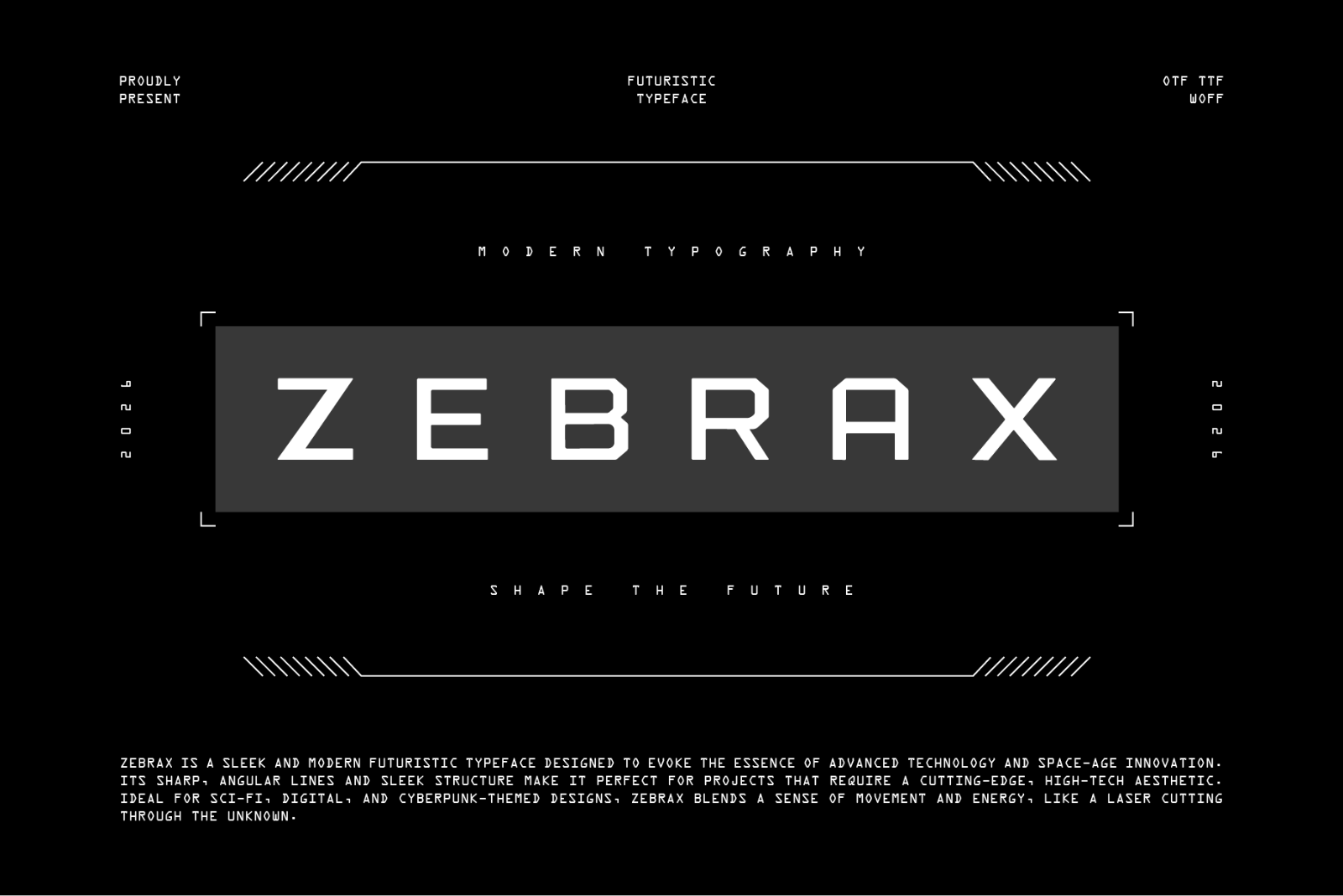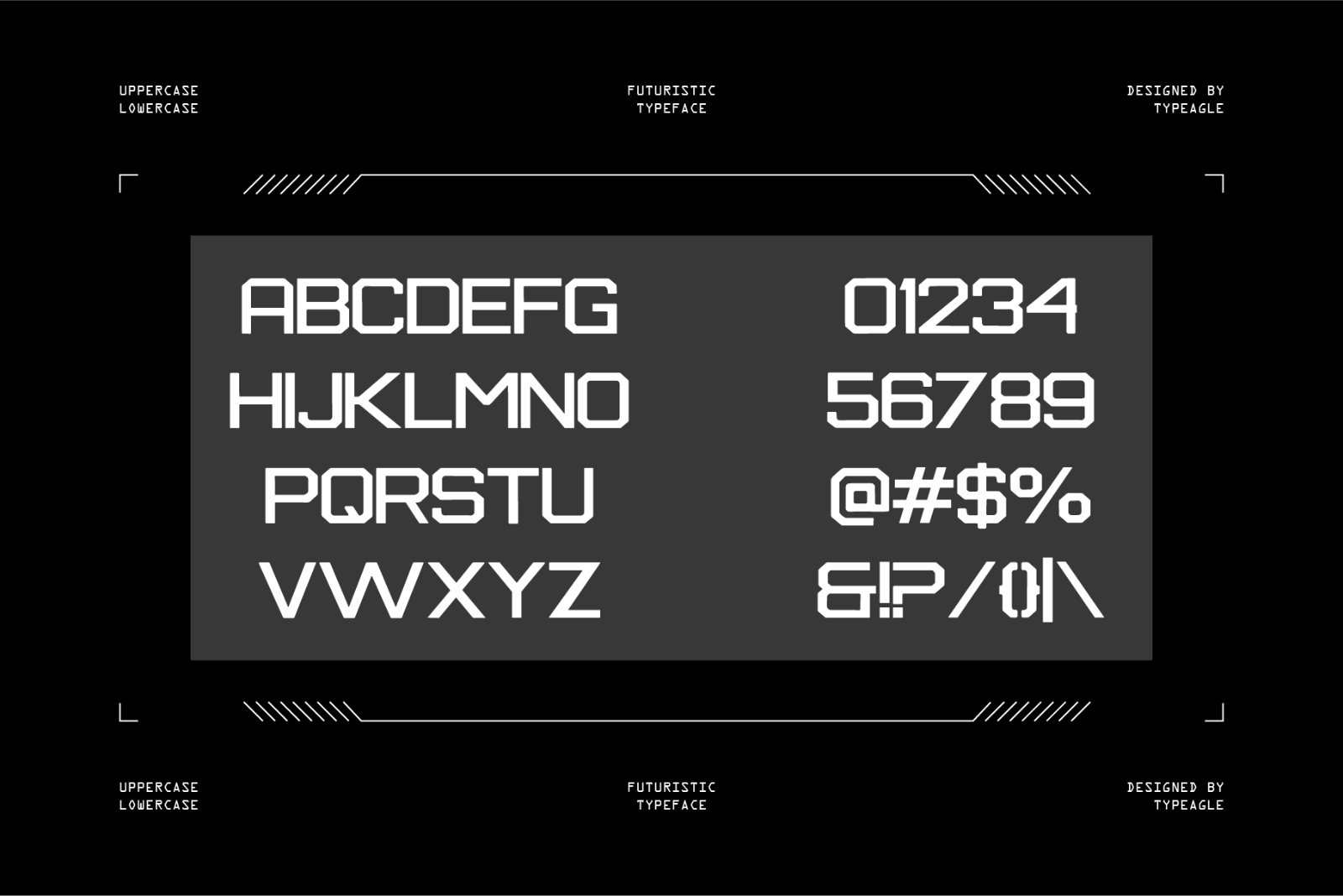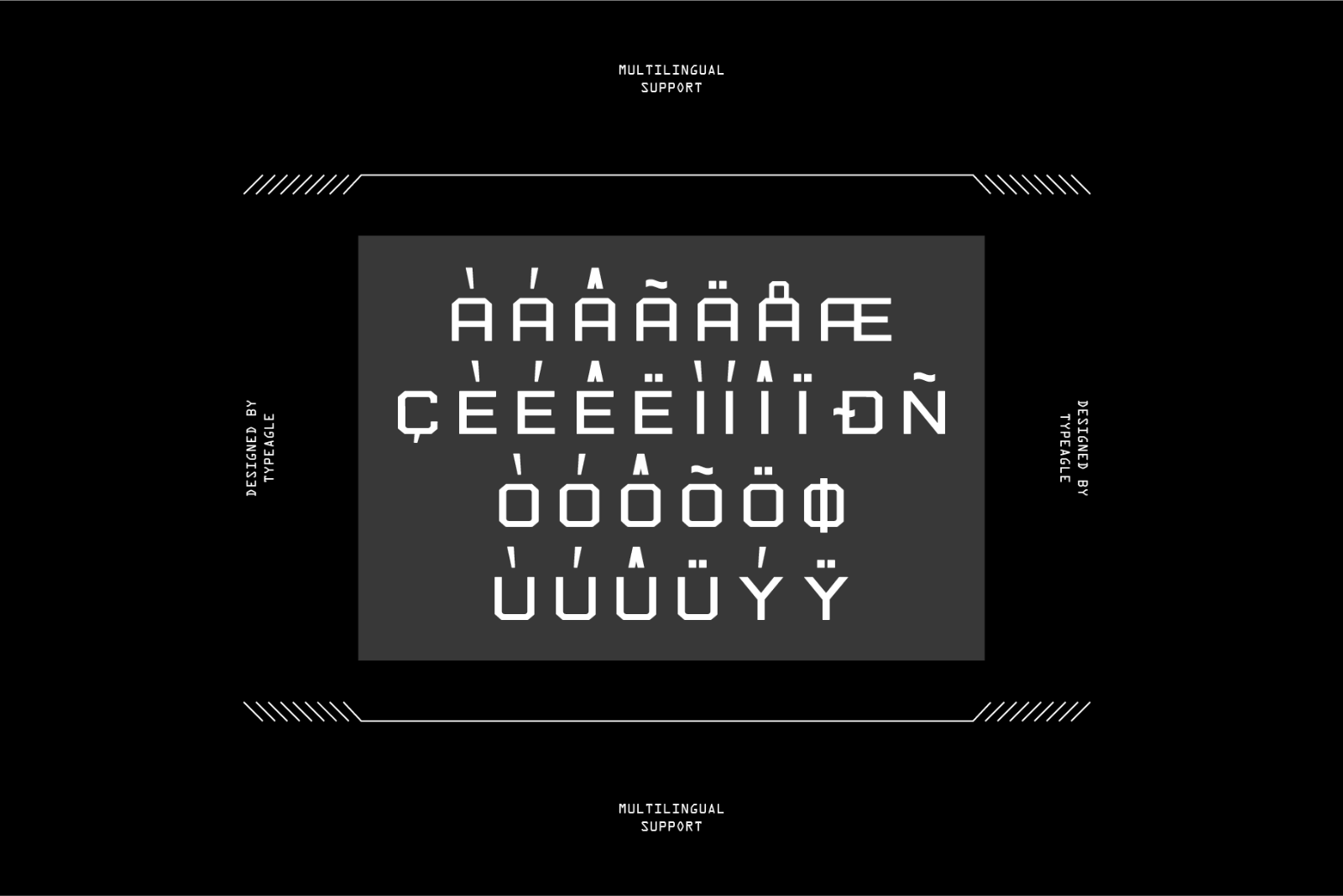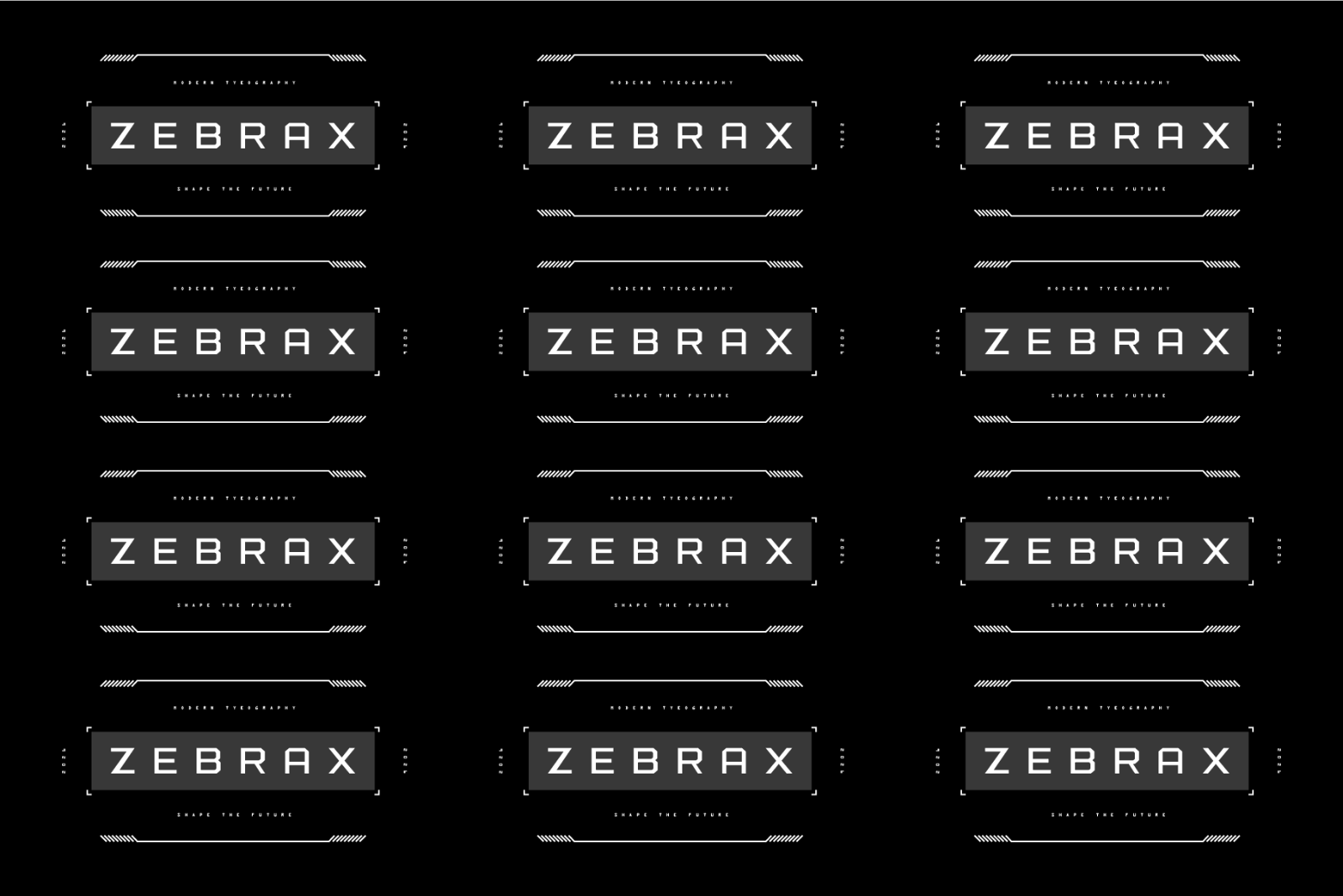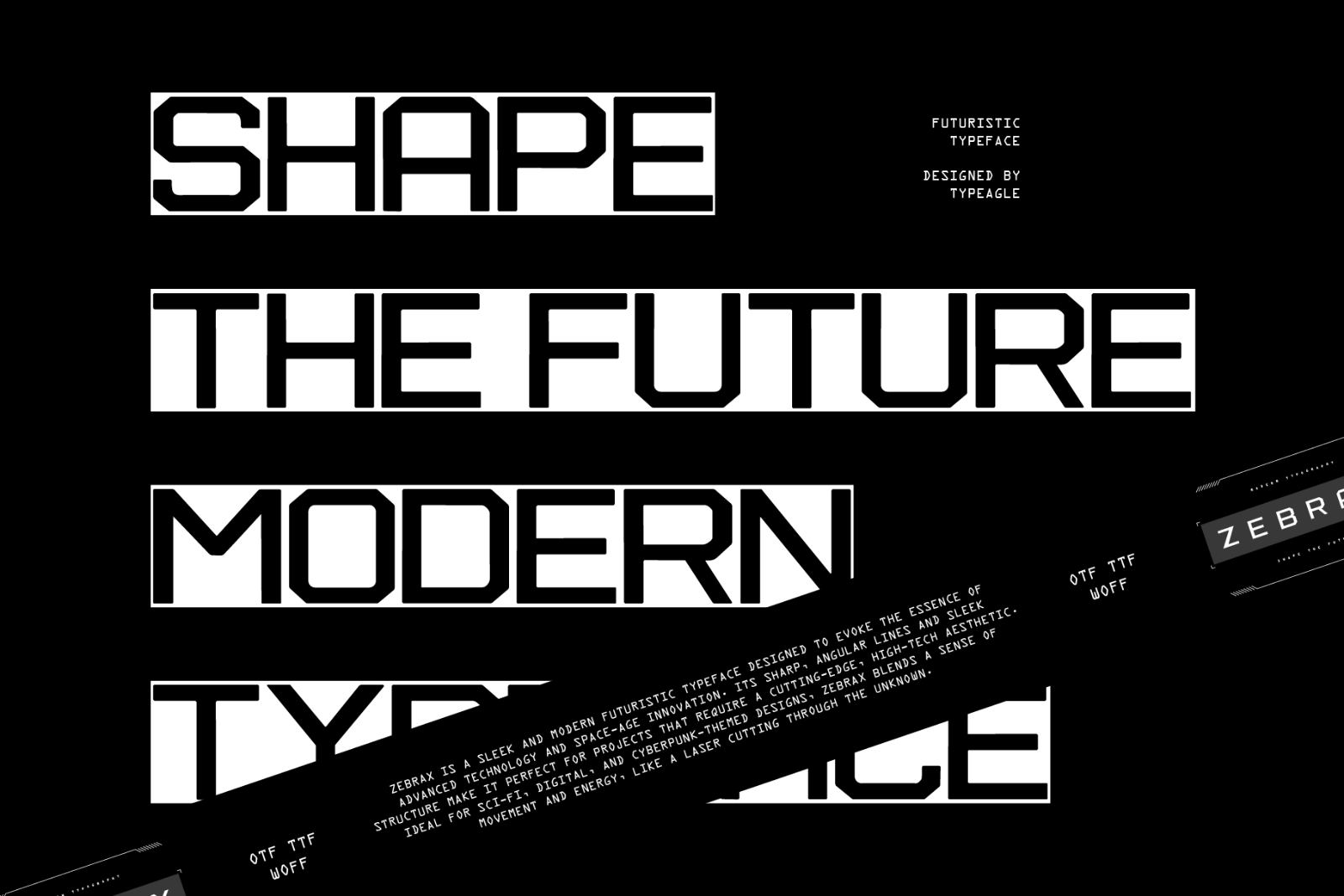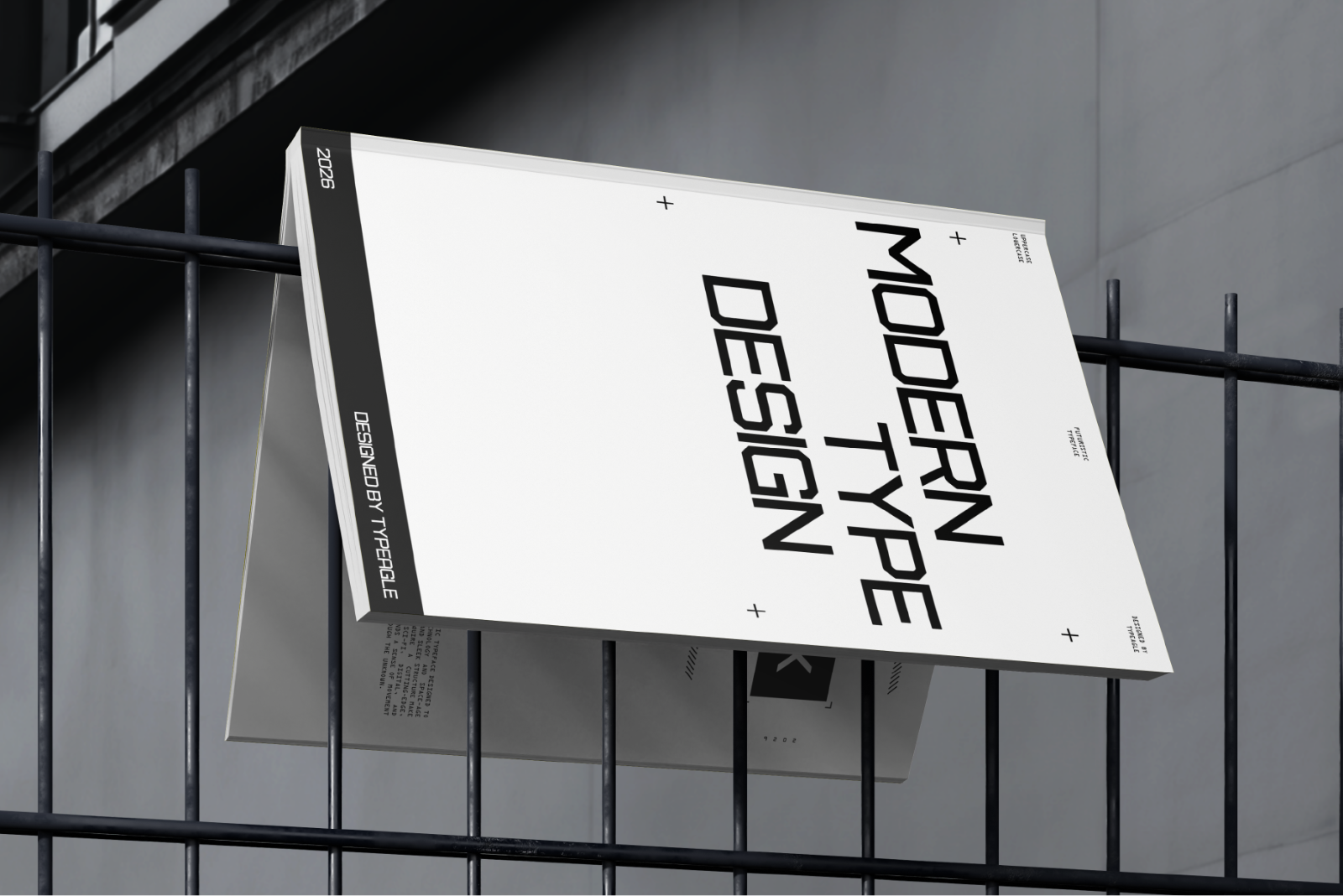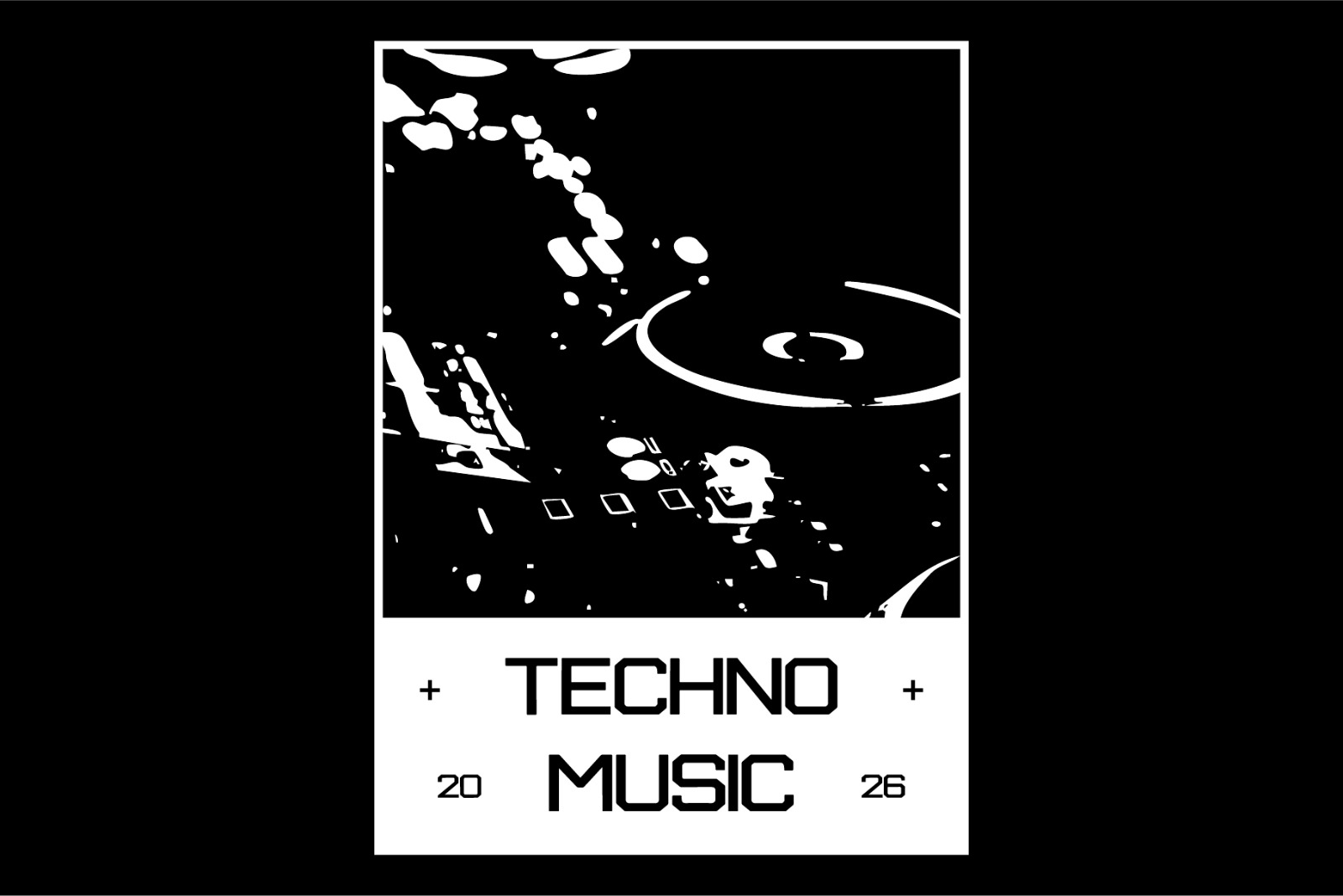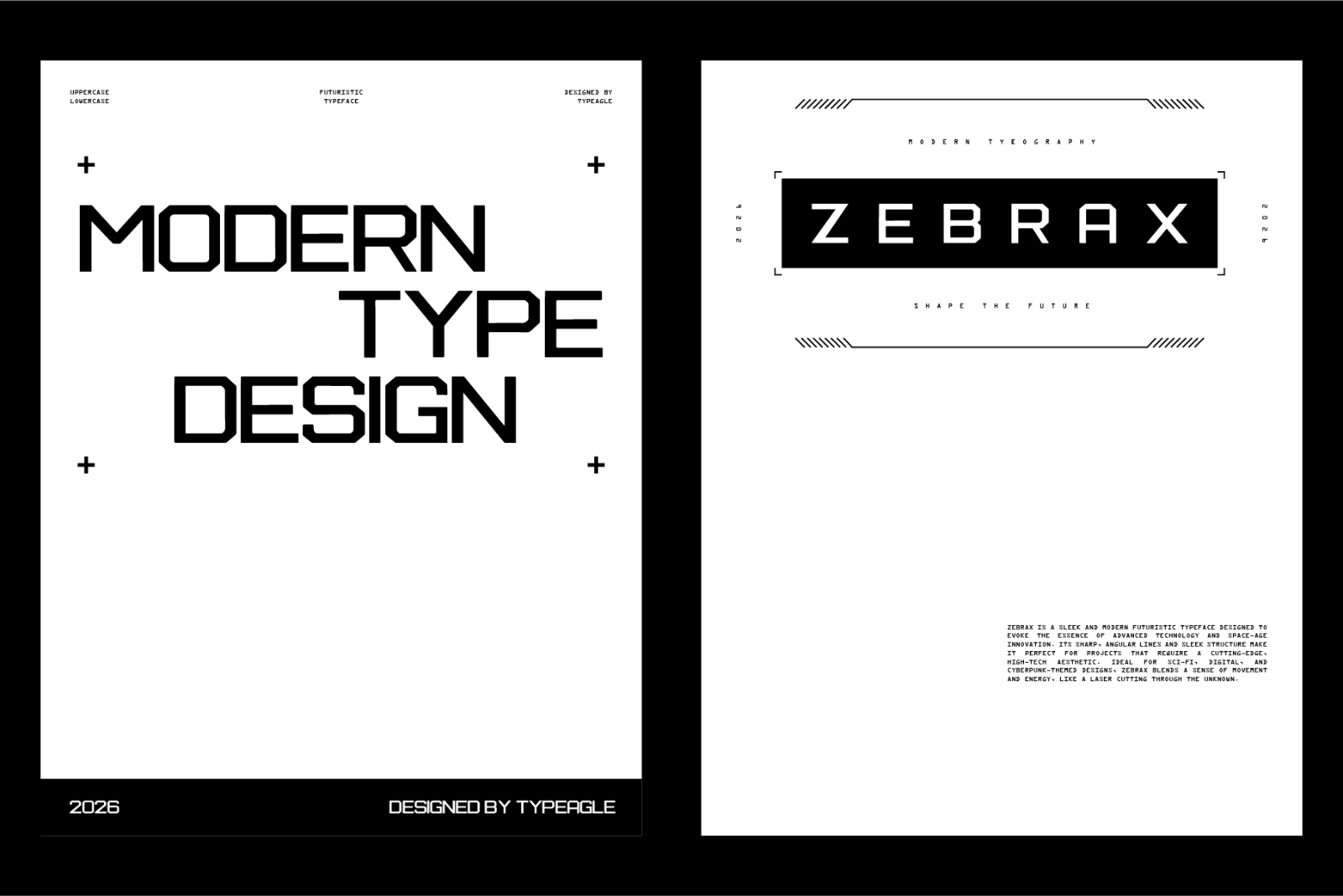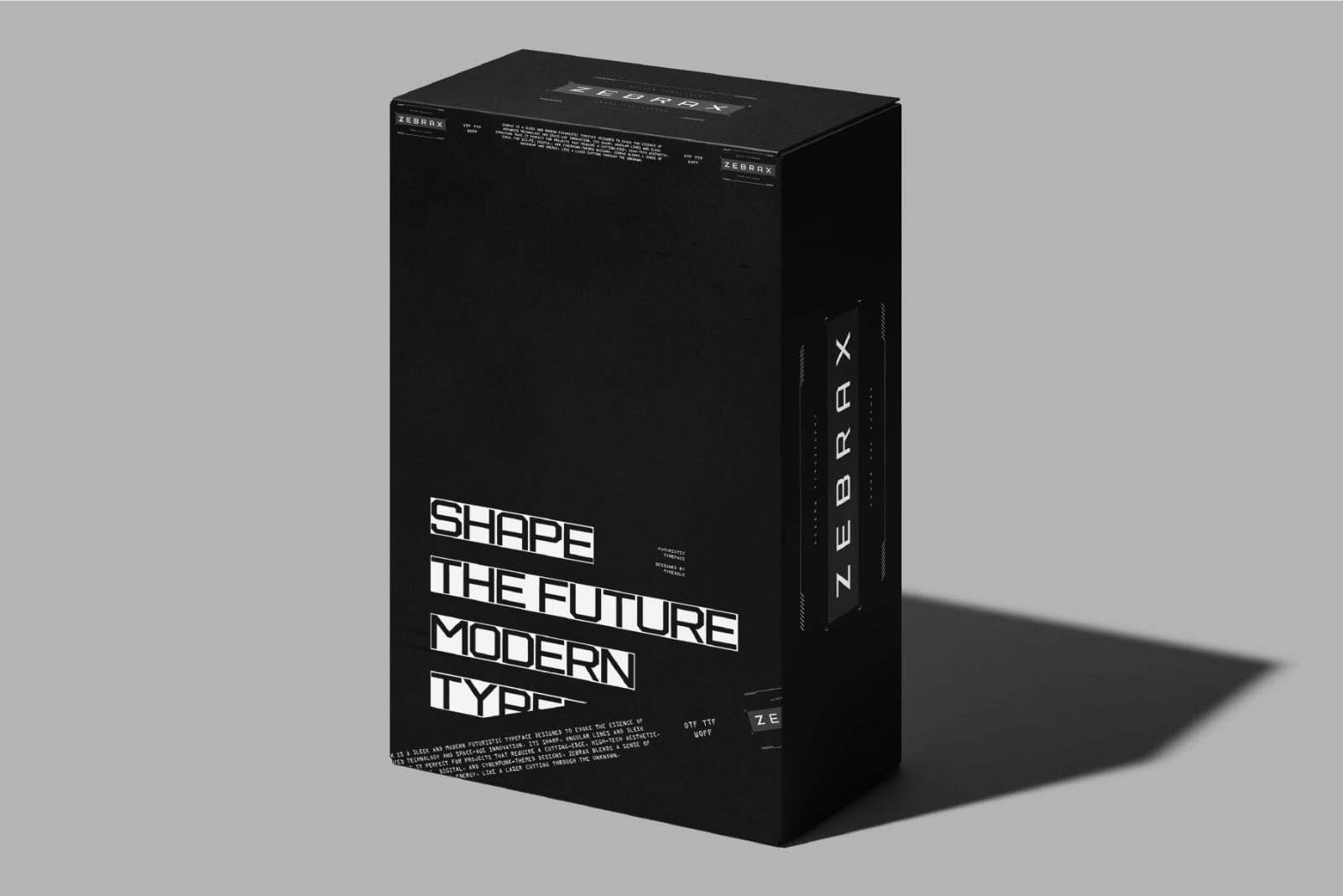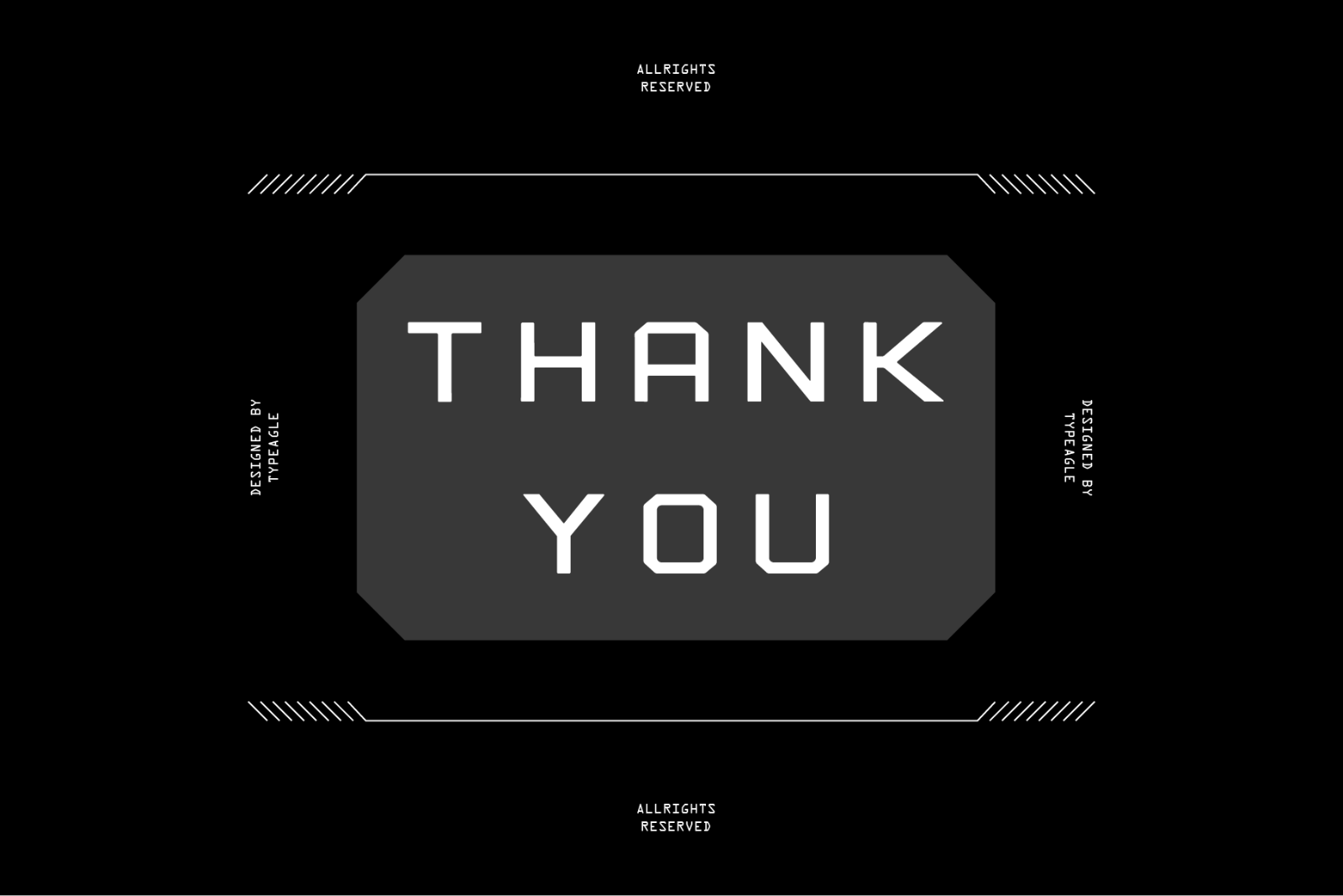
Zebrax is a sleek and modern futuristic typeface designed to evoke the essence of advanced technology and space-age innovation. its sharp, angular lines and sleek structure make it perfect for projects that require a cutting-edge, high-tech aesthetic. ideal for sci-fi, digital, and cyberpunk-themed designs, zebrax blends a sense of movement and energy, like a laser cutting through the unknown.